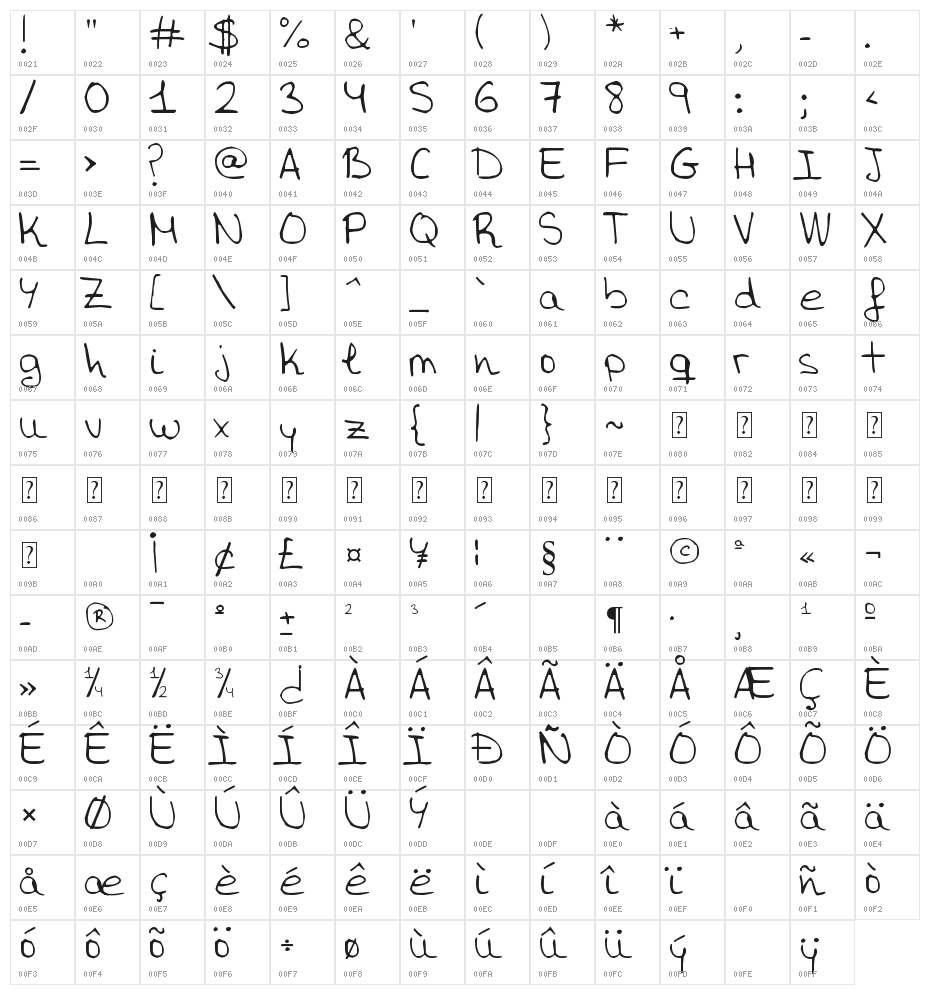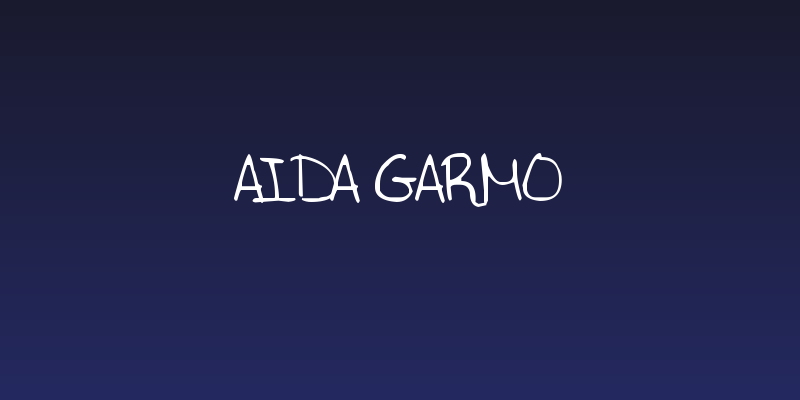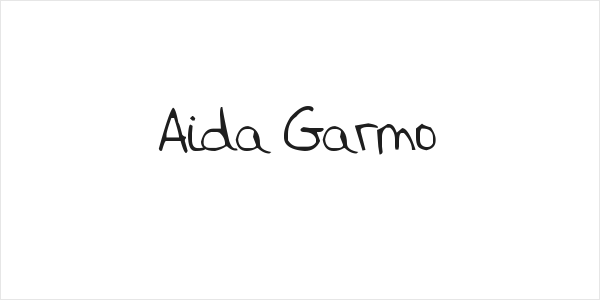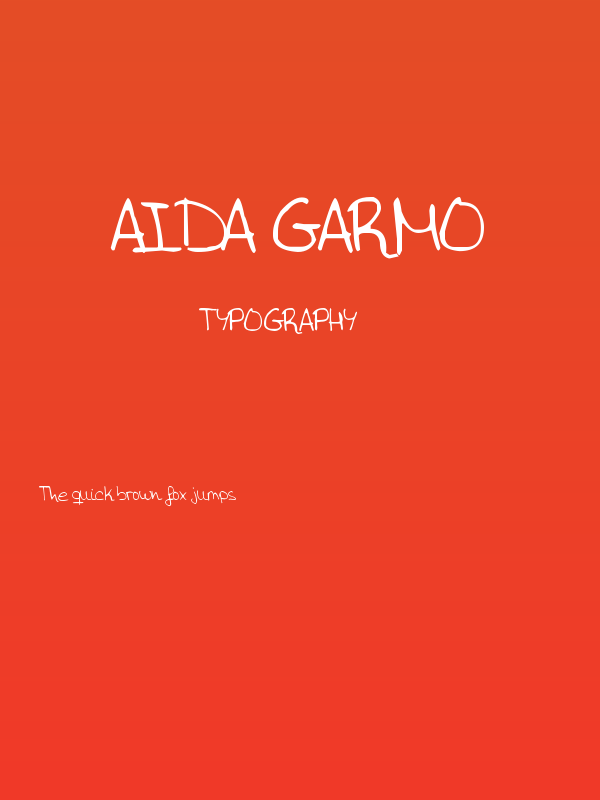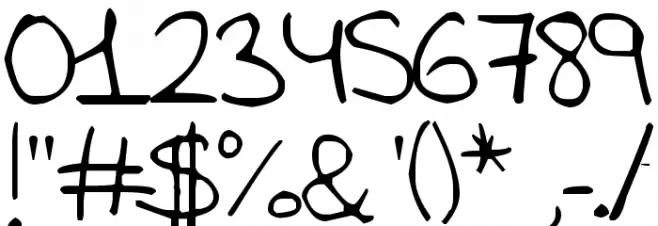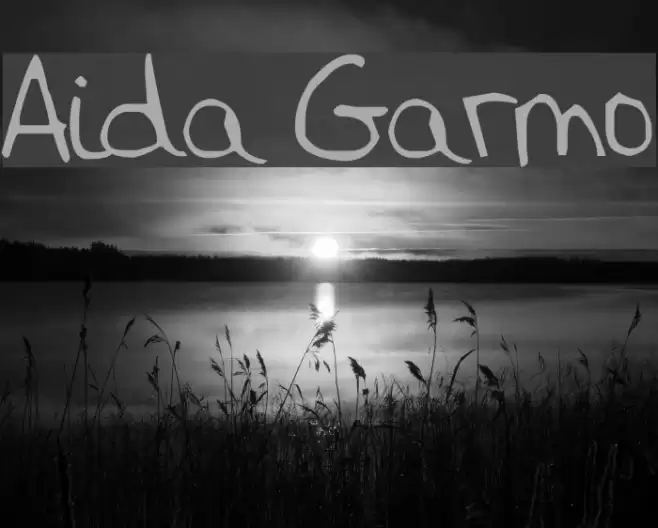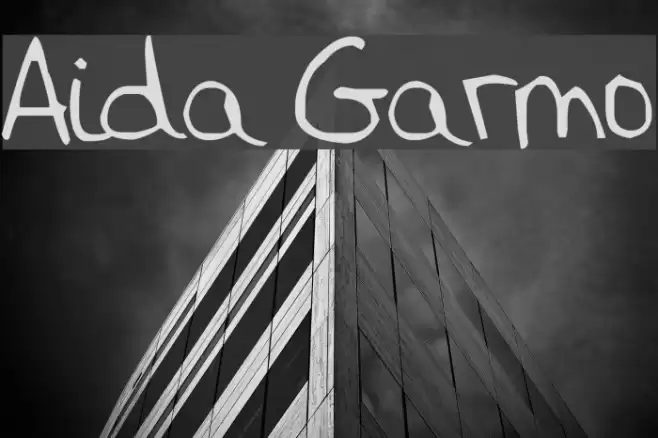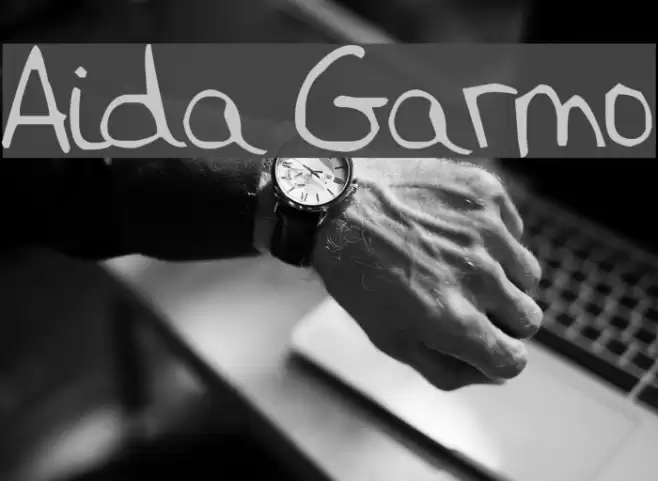
Aida Garmo Font
Aida Garmo Description
This font features a playful and casual handwritten style, characterized by its loose and informal strokes. The letters have a natural flow, with varying thickness that adds a dynamic and lively feel. The uppercase letters are bold and prominent, while the lowercase letters maintain a consistent rhythm, enhancing readability. Numbers and special characters are crafted with the same whimsical touch, making them blend seamlessly with the alphabet. The overall appearance is approachable and friendly, suitable for projects that require a personal and informal tone.
| Overall Style | Casual |
| Use Case | Logos, Headlines, Informal Text |
| Proposed Projects | Ideal for greeting cards, children's books, personal blogs, and informal branding projects. |